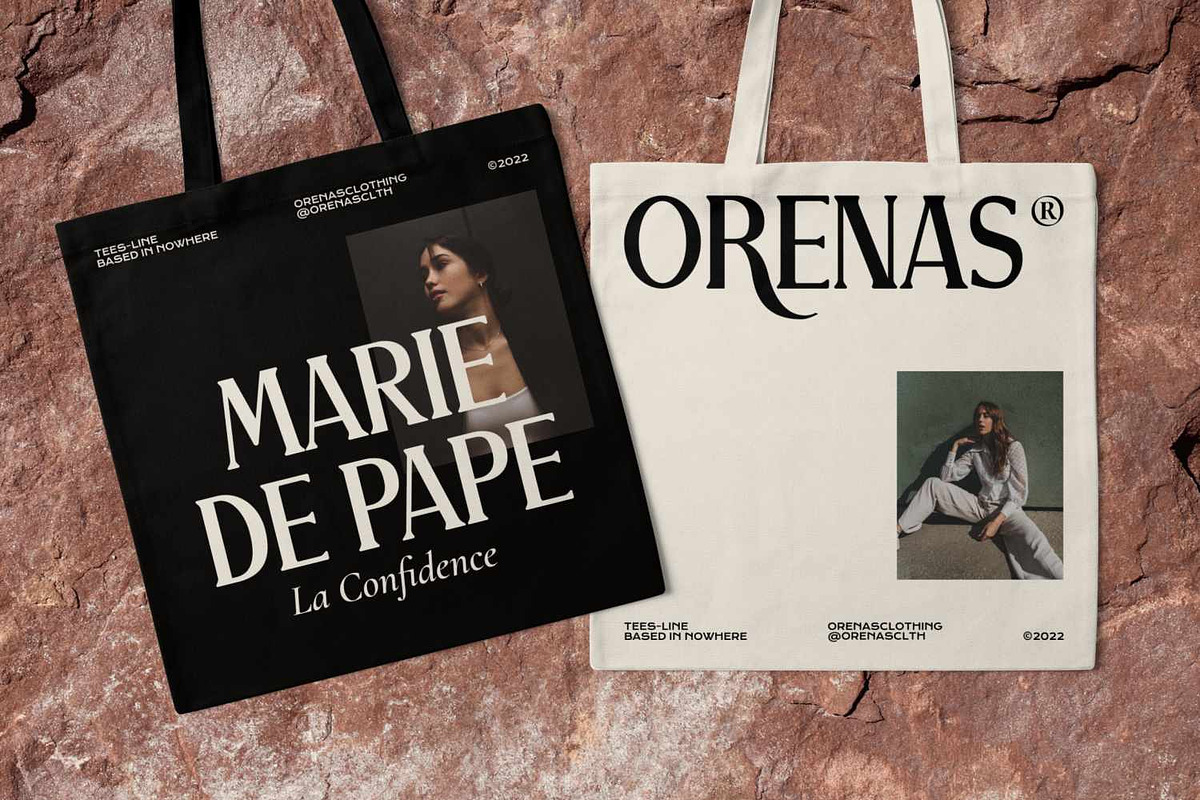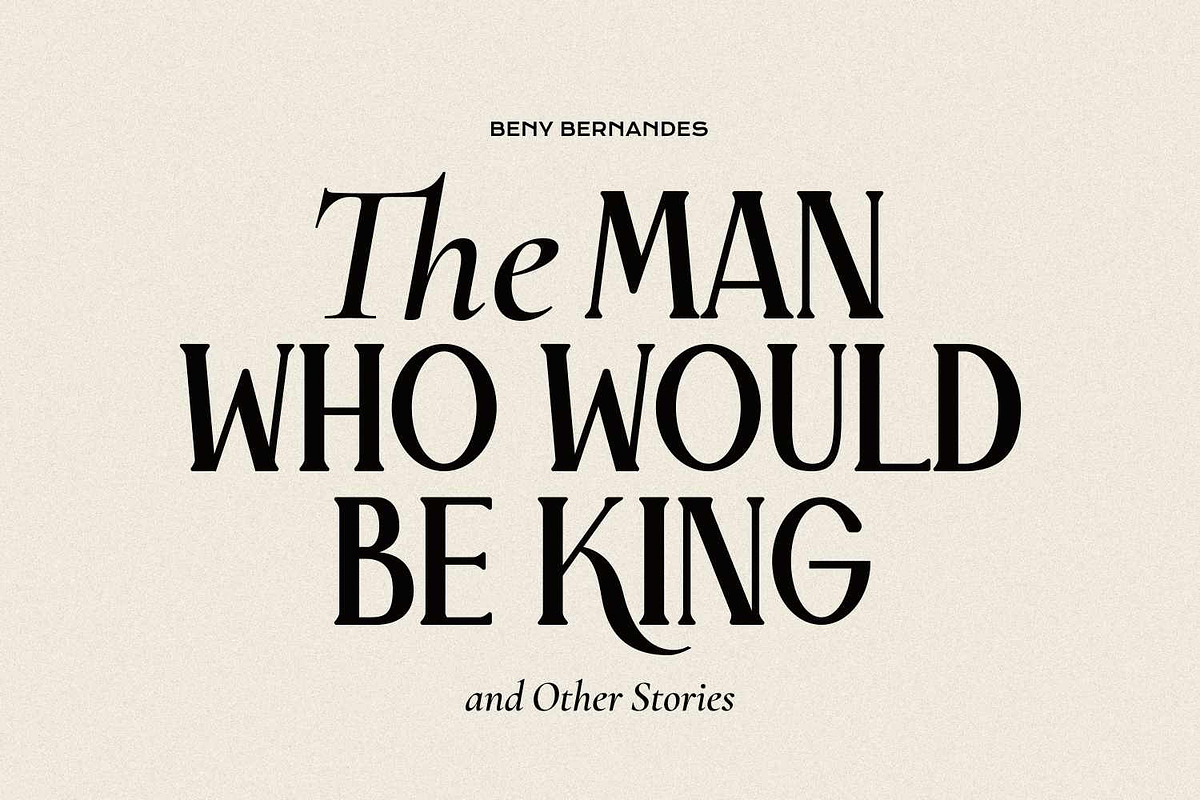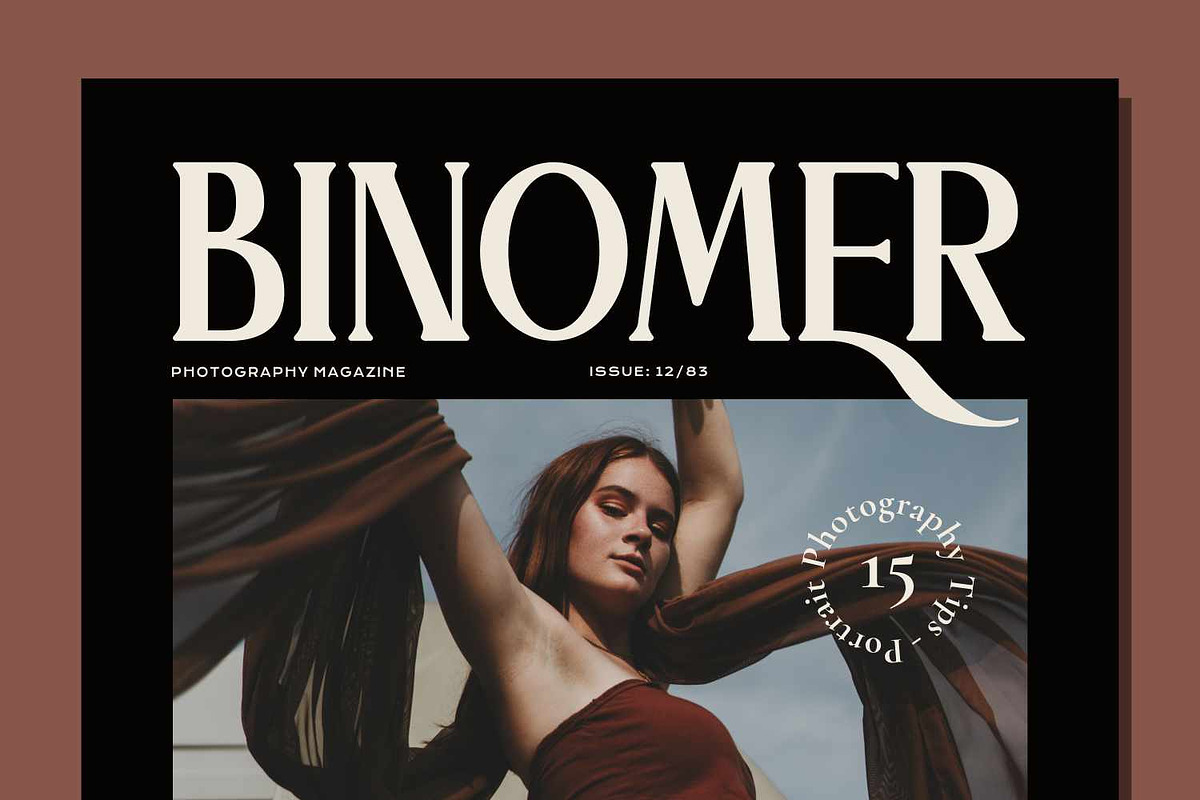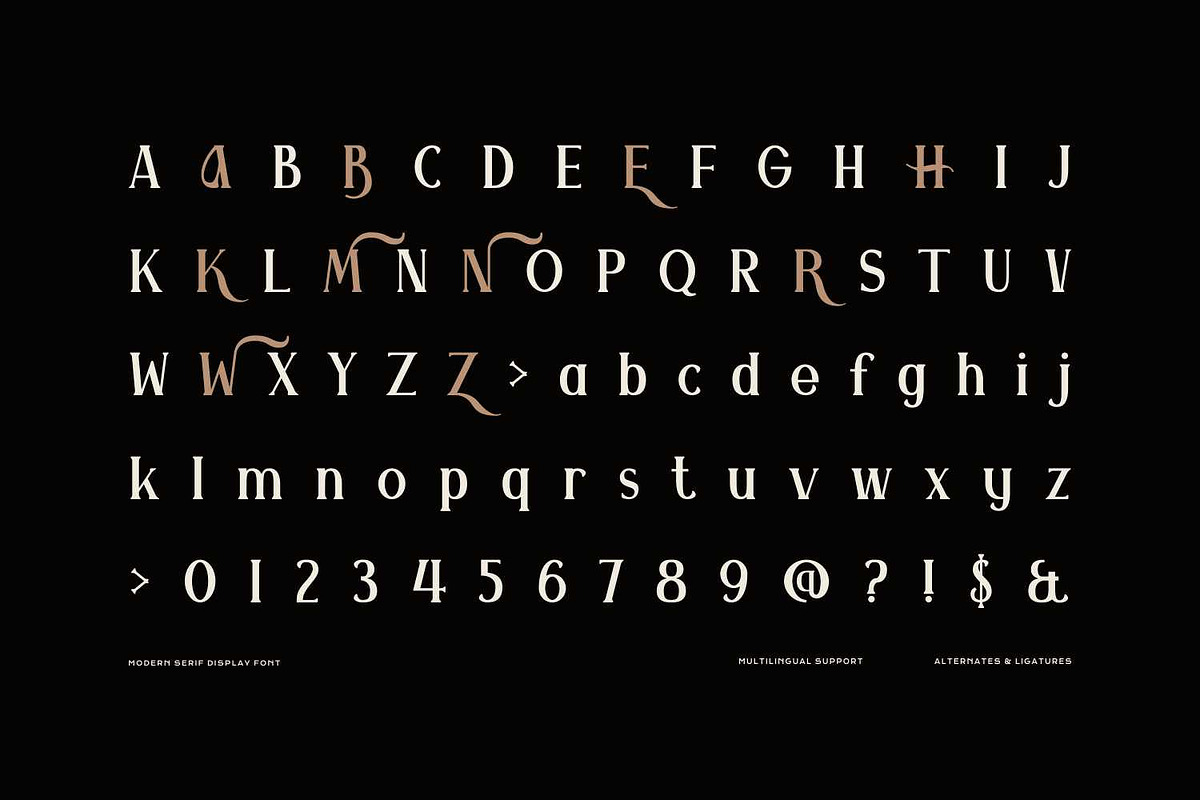
Arniek - Beautiful Serif Font
Arniek is a beautiful serif font that blends elegance with a touch of artistic flair. Designed for standout headlines and luxe branding. It blends sharp, modern forms with relaxed, flowing swashes. Tall, confident letterforms, refined contrast, and flared wedge serifs give it a premium look.
stylish serif details, and contemporary proportions, making it ideal for logos, editorial design, fashion branding, social media graphics, packaging, magazine covers, posters, and any project that needs a chic vibe.